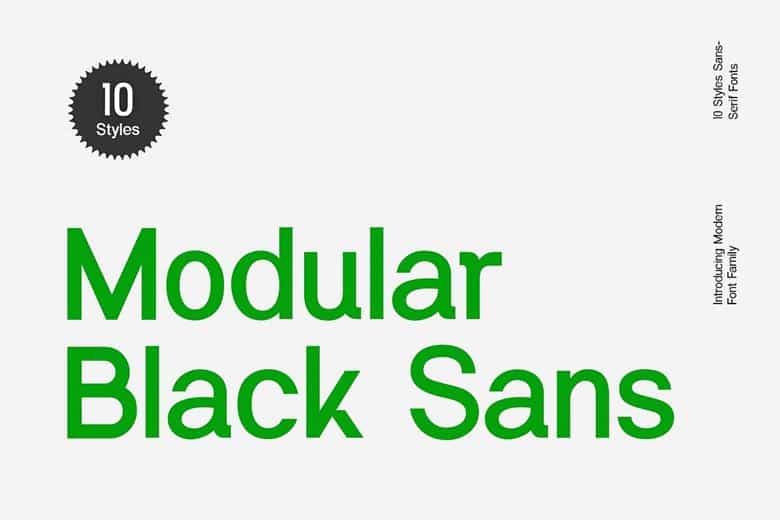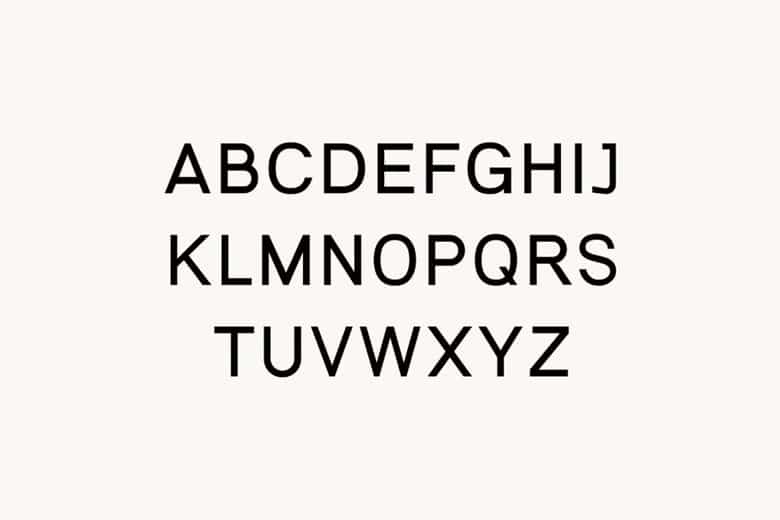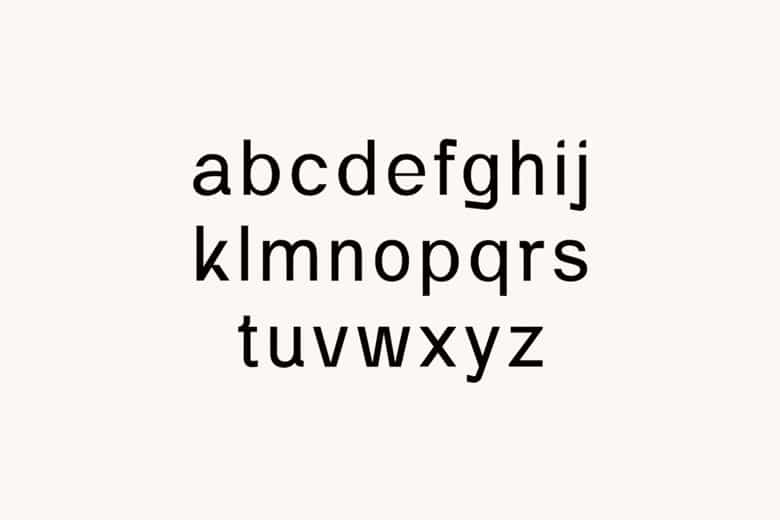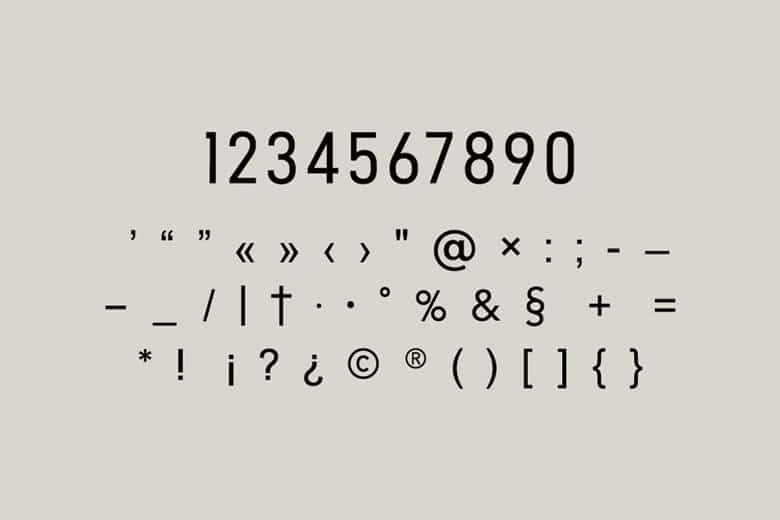
This is a geometric sans font family who has the courage to modernize for the sake of the harmony of curvatures. This great font is perfect for a wide range of projects like logo and wedding, typography quotes, book and magazine covers, website headers, branding, and etc.